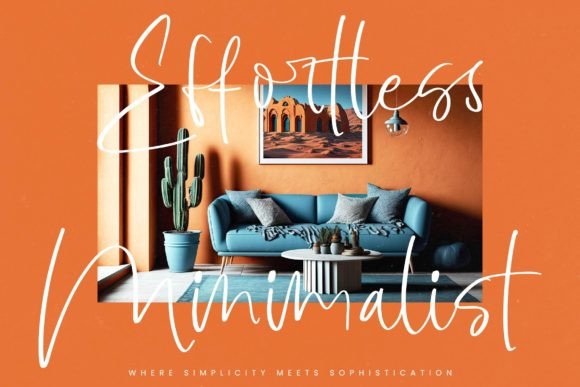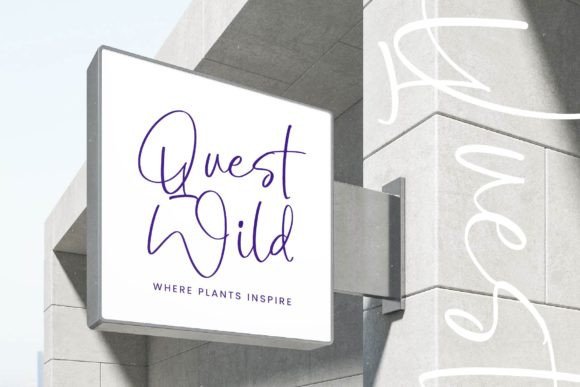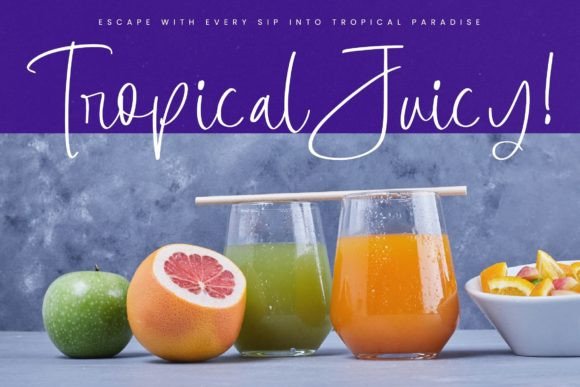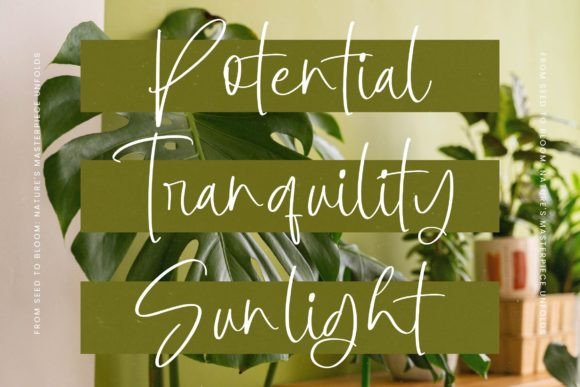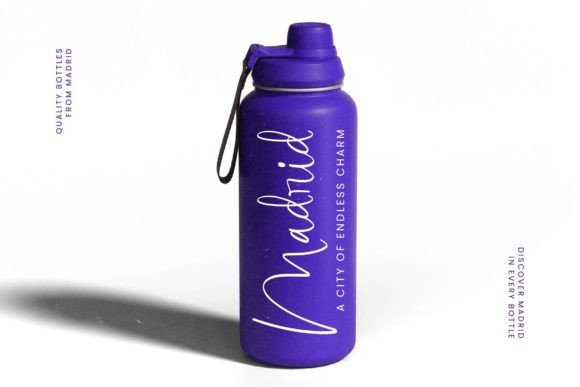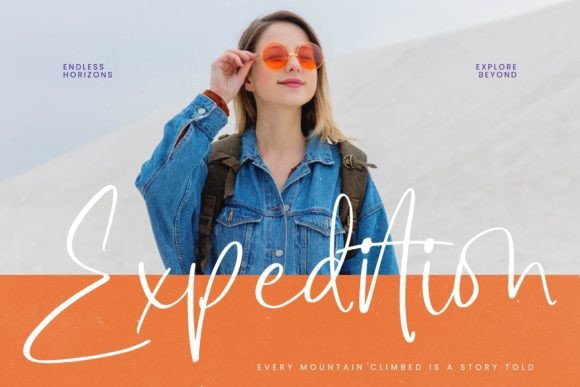
Enter the Botany Centers Font, a luxurious script font designed to elevate any project to new heights. This stunning font is perfect for logos, branding, and so much more – from homeware designs to product packaging, and from quotes to posters. Whether you’re working on a high-end campaign or a personal passion project, the Botany Centers Font is sure to make your designs stand out.
Key Features of Botany Centers Font
- Font Family: Botany Centers Font is a unique and elegant script font designed for various applications.
- Character Set: The font includes a comprehensive set of characters, including uppercase and lowercase letters, numbers, and punctuation marks.
- Unique Characteristics: Botany Centers Font features a unique blend of modern and classic elements, with intricate details and flourishes that add a touch of elegance to any design.
Botany Centers Font Review
Overall, I found Botany Centers Font to be a visually appealing addition to any design project. ✨ The font’s elegant and sophisticated feel makes it perfect for luxury brands or high-end fashion designs. The subtle floral elements and soft curves give the font a unique touch that sets it apart from more traditional serif fonts.
The Botany Centers Font works particularly well for:
- Headlines and titles, where its elegant feel can add a touch of sophistication
- Body text, where the font’s readability and legibility make it easy to read
- Branding and logos, where the font’s unique elements can be used to create a memorable and recognizable identity
However, I did encounter some limitations with the font. ⚠️ The Botany Centers Font is not ideal for:
- Large blocks of text, where the font’s subtle flourishes can become distracting
- Informal or playful designs, where the font’s elegant feel may not fit with the desired tone
Overall, I would recommend the Botany Centers Font for designers looking to add a touch of sophistication and elegance to their projects. While it may not be suitable for every design, its unique elements and versatility make it a valuable addition to any designer’s toolkit.
Botany Centers Font is a versatile font that can be used for a variety of purposes. To get the most out of it, consider the following tips:
– Use it for titles and headings to add a touch of elegance.
– Pair it with other fonts to create a unique and visually appealing design.
– Experiment with different font sizes and styles to add emphasis and create visual interest.
Botany Centers Font can be used in a variety of contexts, including:
– Branding and marketing materials.
– Educational materials and textbooks.
– Artistic and creative projects.
– Website and app design.
Comparison to Botany Centers Font: Carolyna Pro has a more refined and polished look compared to Botany Centers Font, which has a more playful and whimsical feel. While Botany Centers Font is great for casual designs, Carolyna Pro is better suited for luxury and high-end projects.